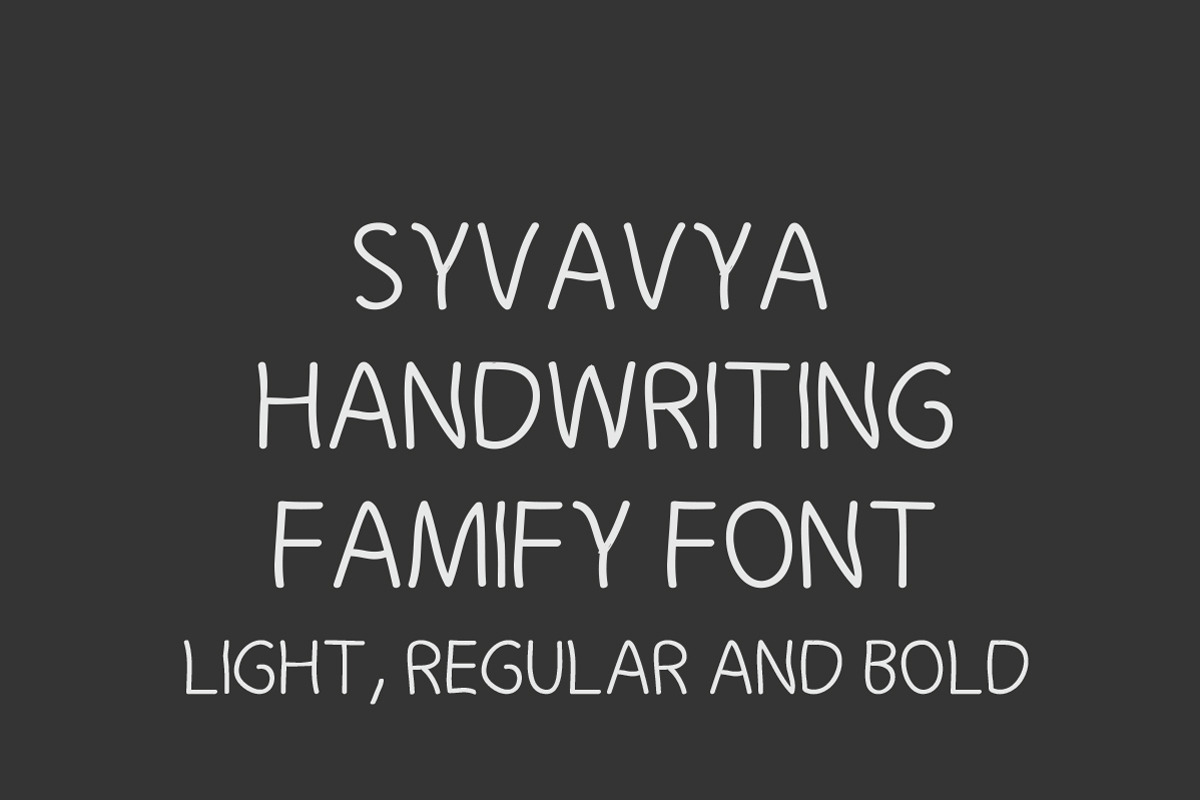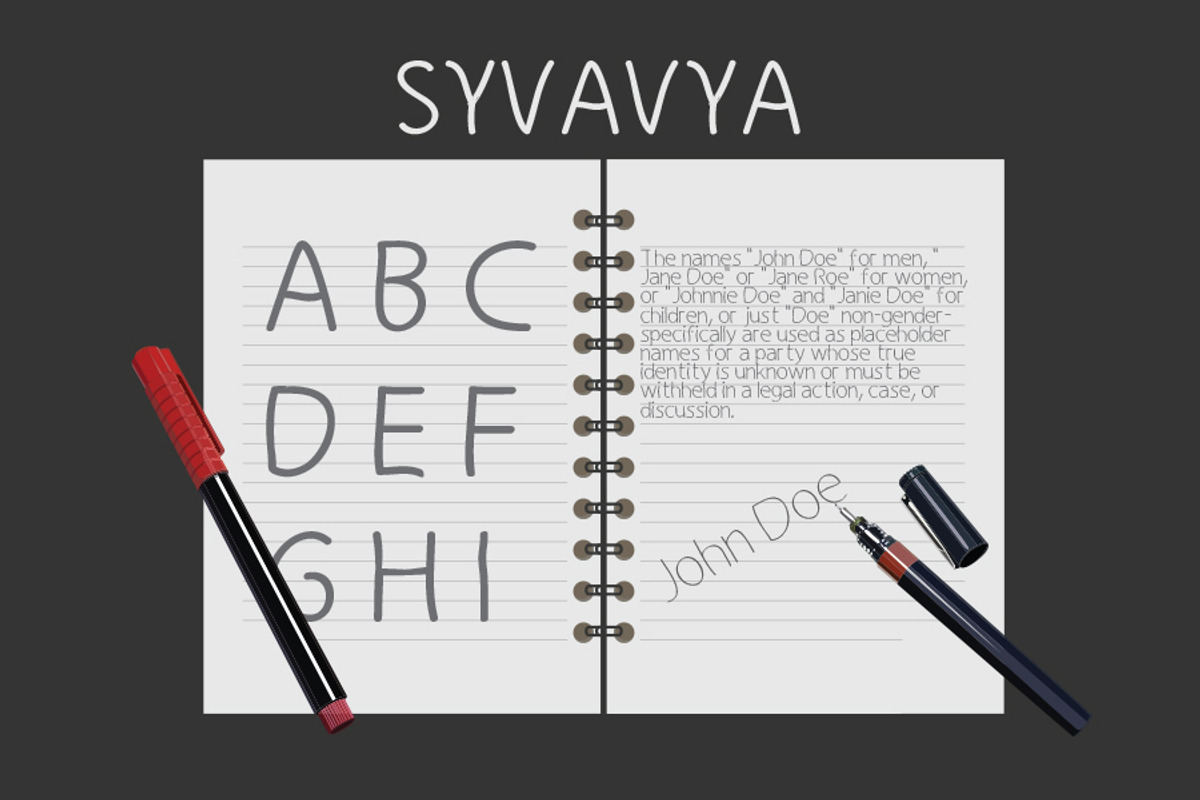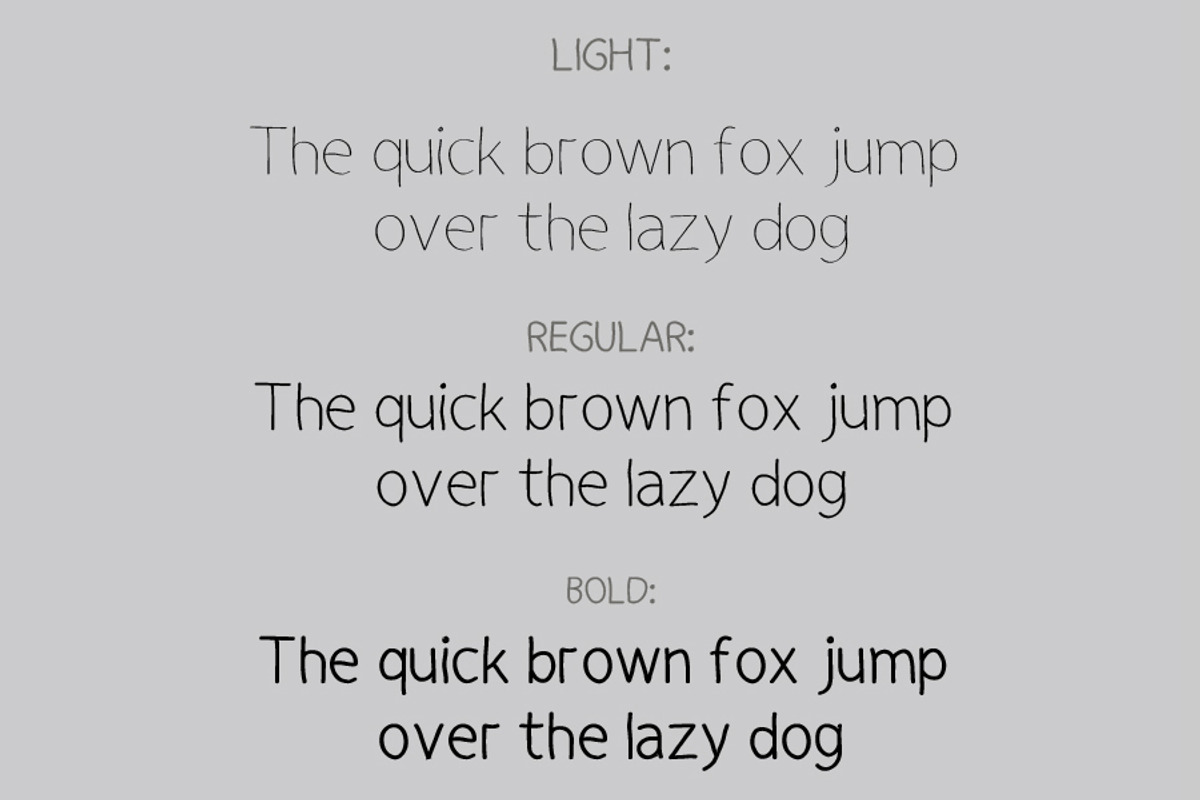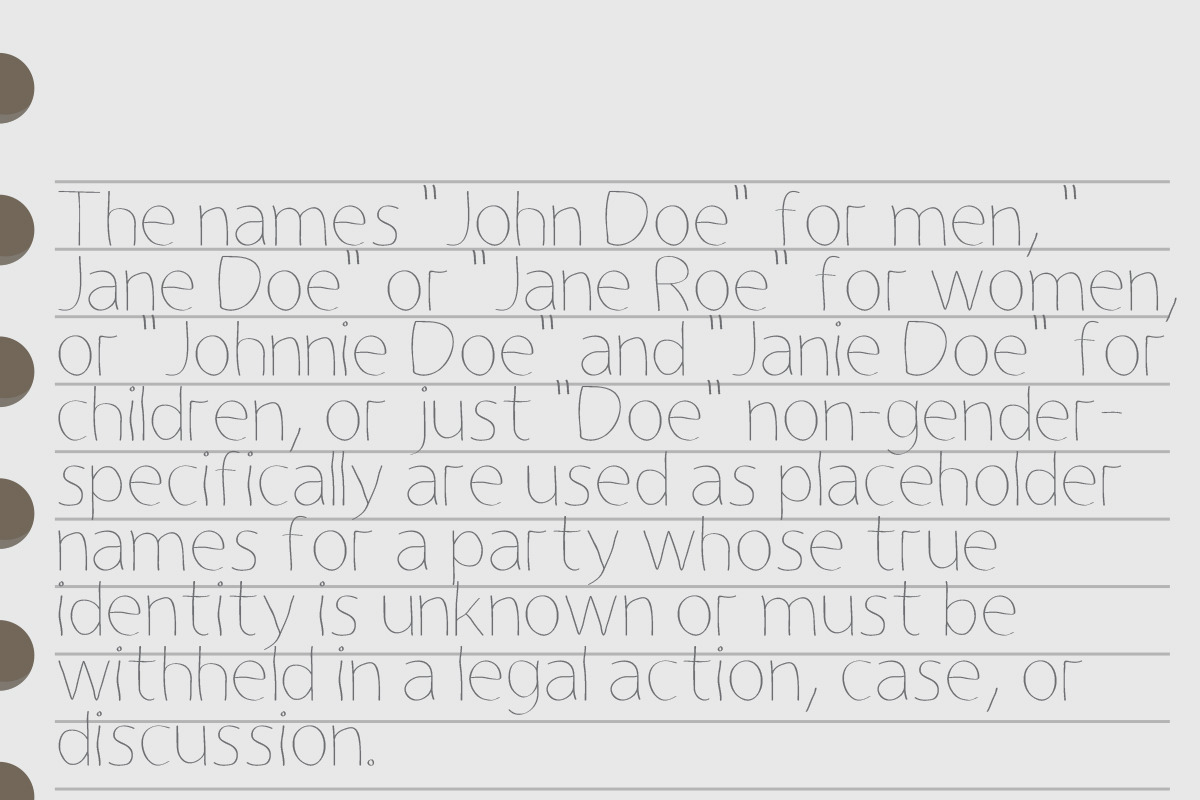
Syvavya Handwriting Family Font
Syvavya Handwriting Family Font by Emdaduljs is a font selected for branding, posters, packaging, typography.
- Syvavya Regular
- Syvavya Light Regular
- Syvavya Bold
Why Syvavya Handwriting Family Font is worth a look
Syvavya Handwriting Family Font by Emdaduljs fits naturally into Branding, posters, packaging, typography.